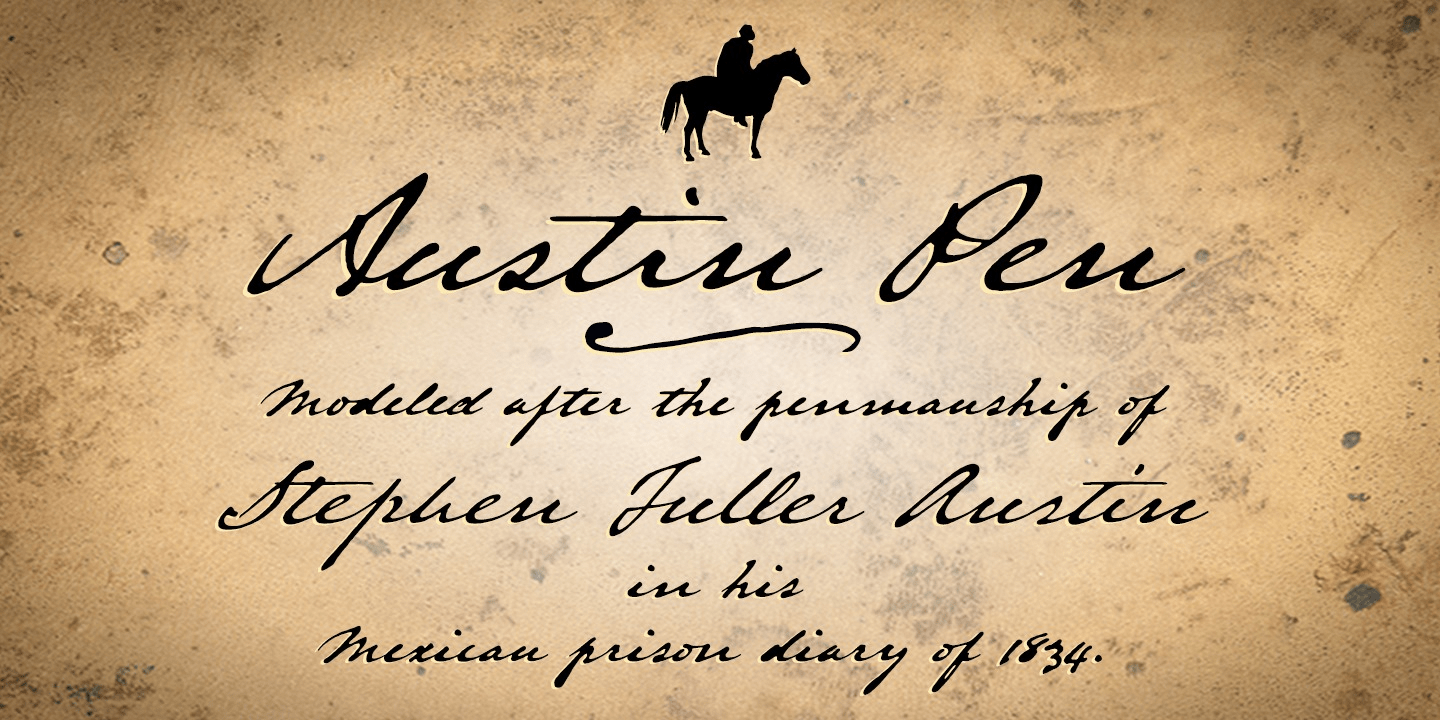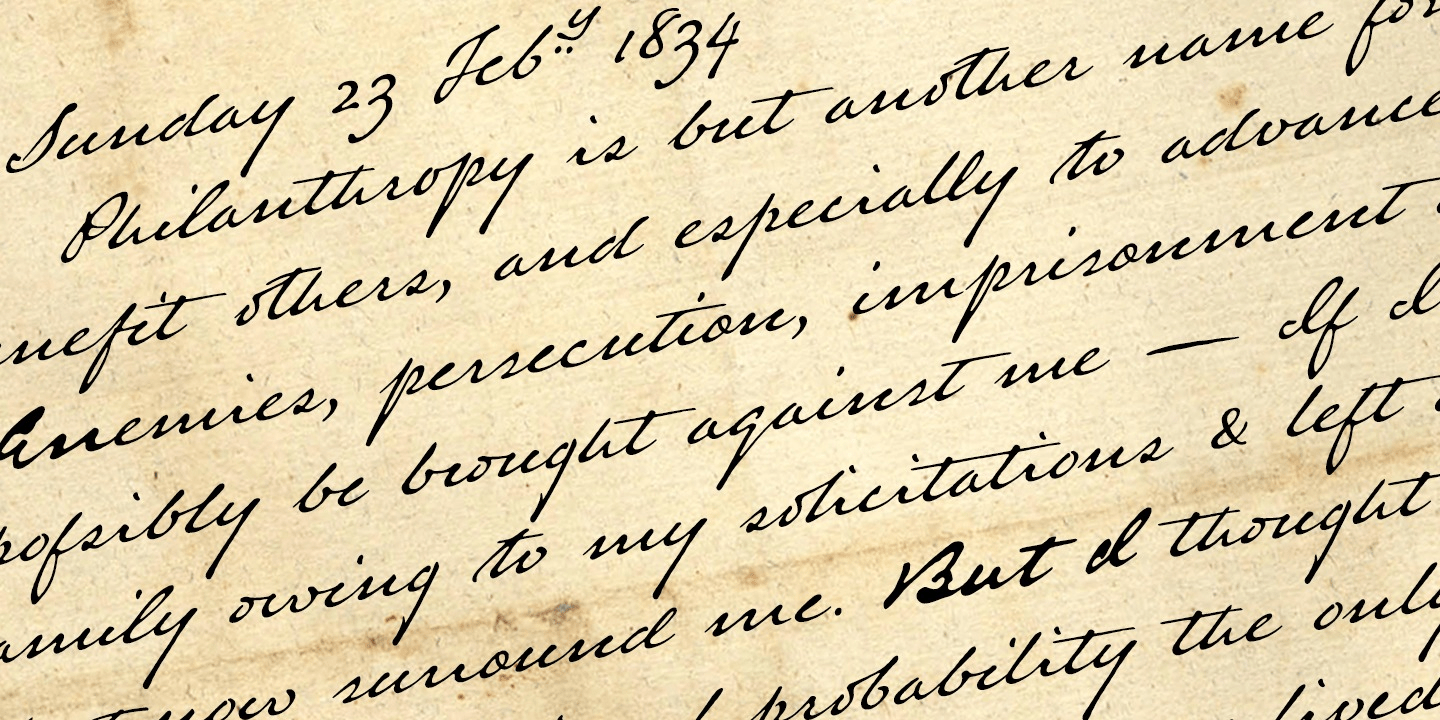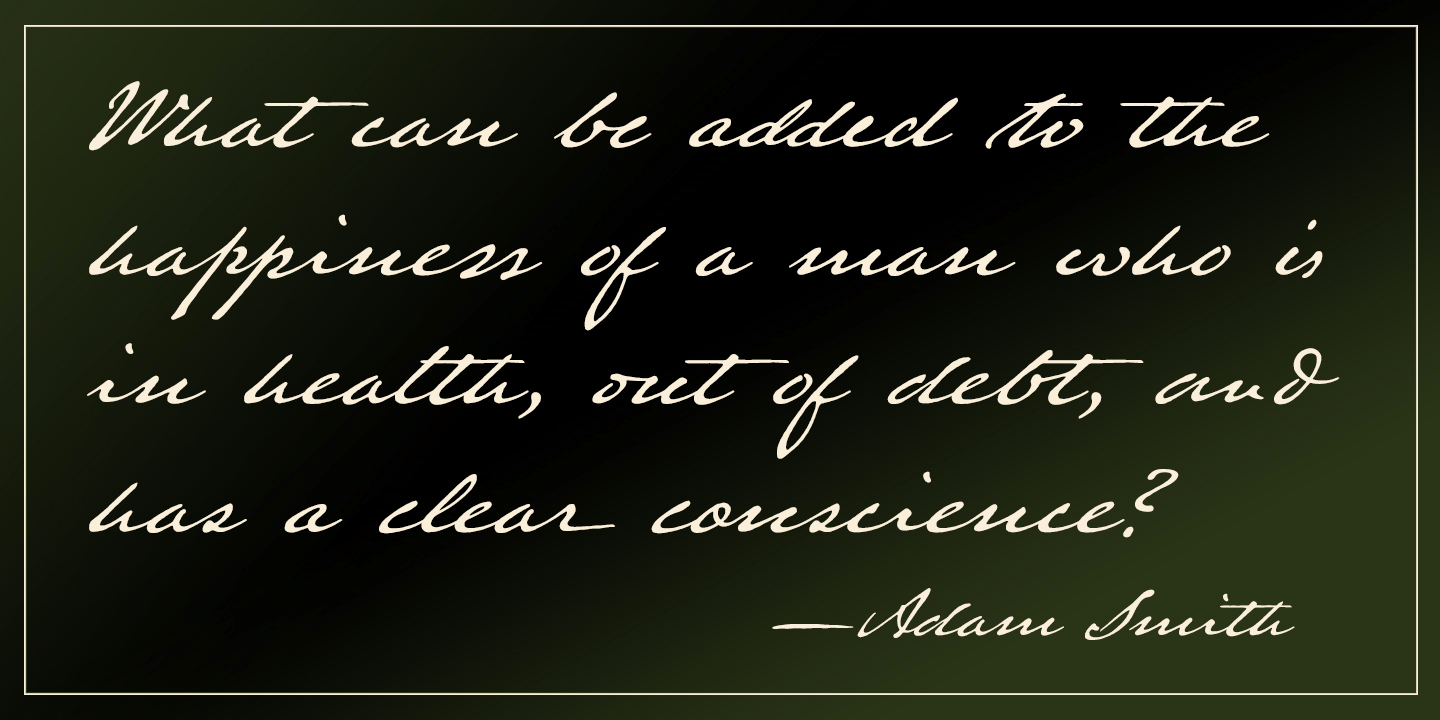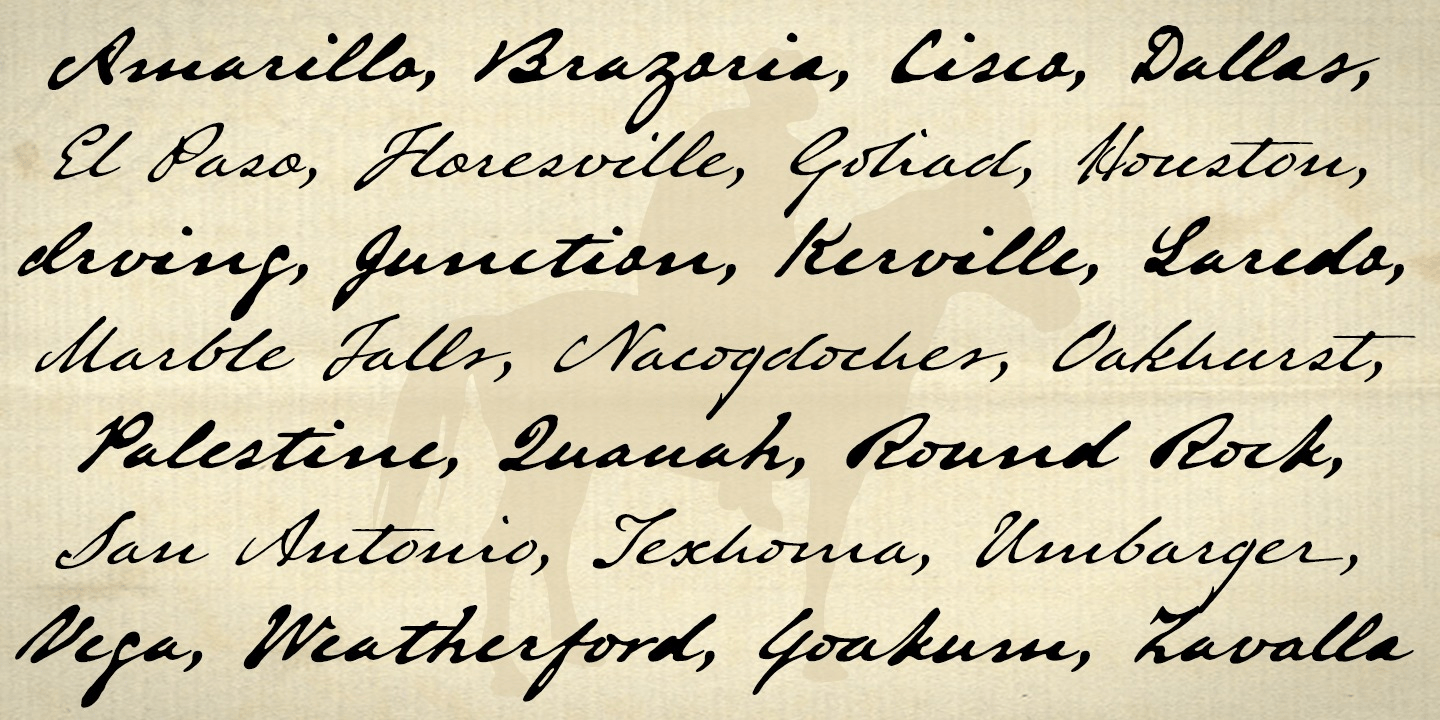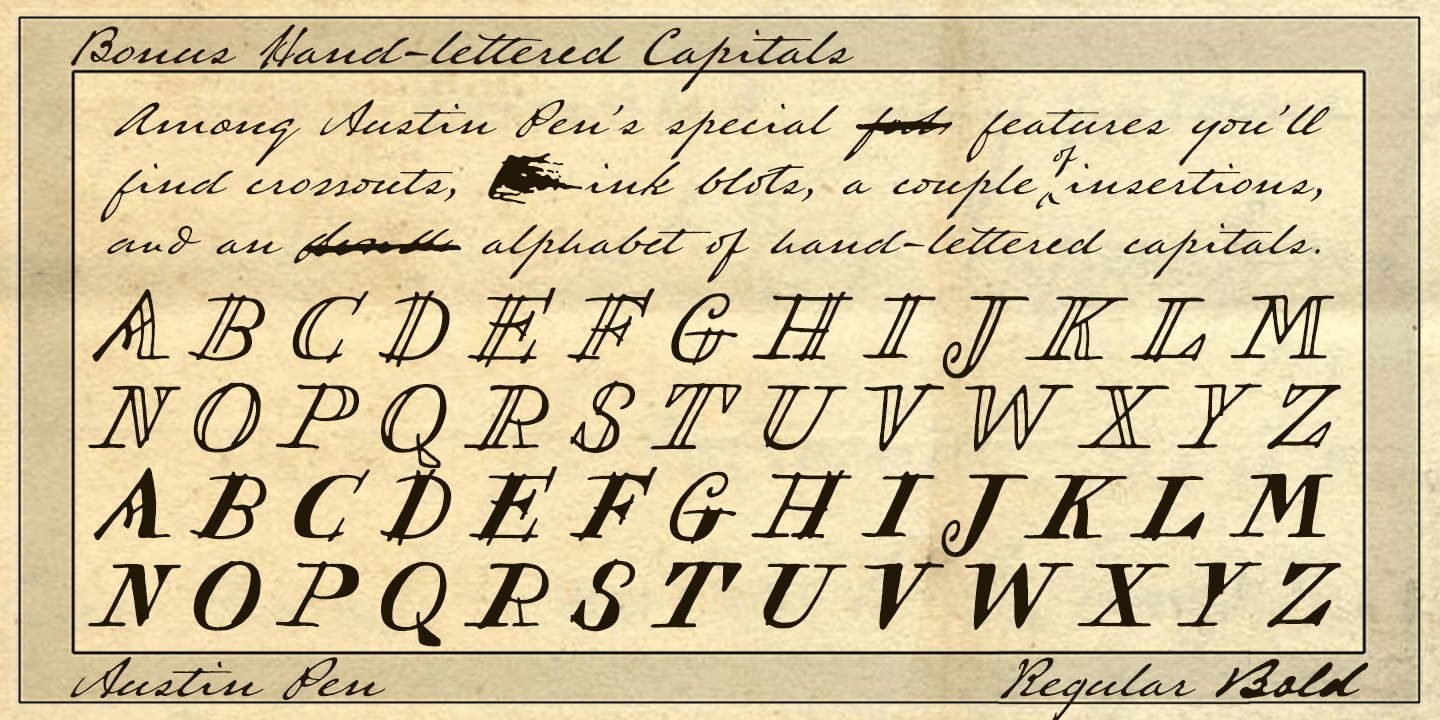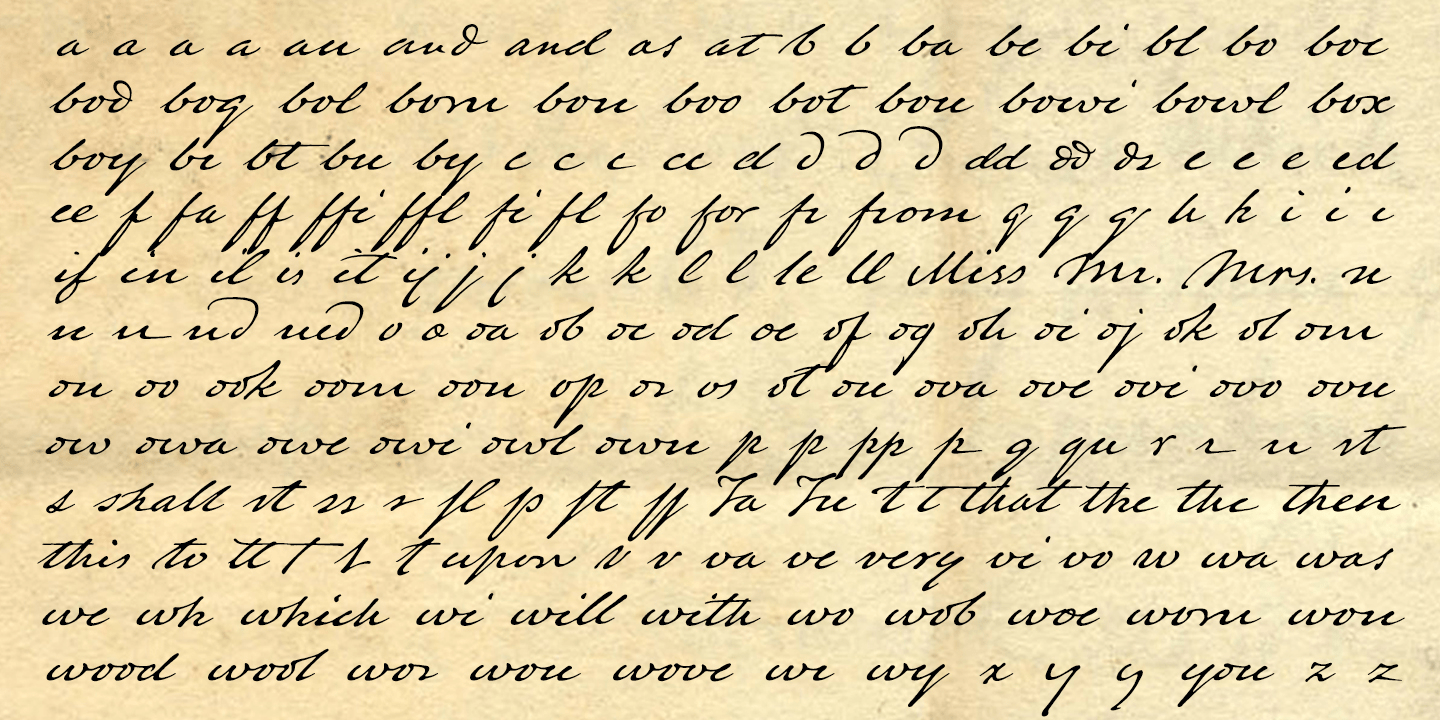
Austin Pen
Empresario Stephen F. Austin (1793-1836) is considered by many the "Father of Texas". Austin Pen is my interpretation of Austin's scribblings in his miniature journal. The little leather-bound book is filled with notes in ink and pencil'some of the faded penciled pages traced in ink years later by Austin's nephew Moses Bryan.
A genuine replication of 19th century cursive, Austin Pen has two styles: a fine regular weight, along with a bold style that replicates passages written with an over-inked pen. Each is legible and evocative of commonplace American penmanship of two centuries ago.